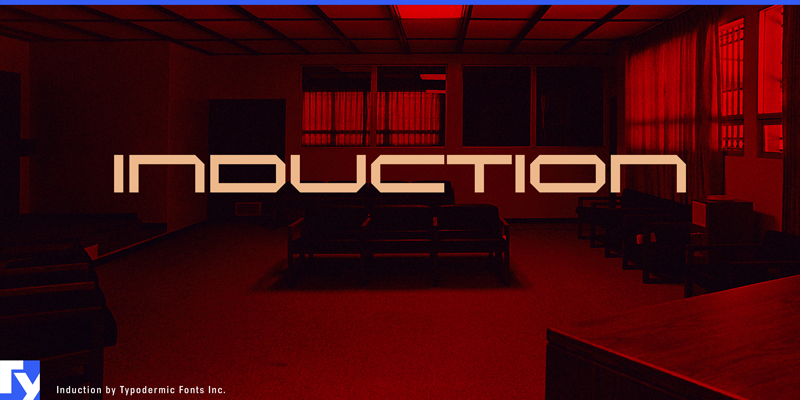
Note of the authorInduction is a digital display typeface with an outstretched structure. It was inspired by Wim Crouwel's 1967 New Alphabet. This broader, more approachable design isn't as revolutionary, but it works well for everyday purposes. Most Latin-based European writing systems are supported, including the following languages. Afaan Oromo, Afar, Afrikaans, Albanian, Alsatian, Aromanian, Aymara, Azerbaijani, Bashkir (Latin), Basque, Belarusian (Latin), Bemba, Bikol, Bosnian, Breton, Cape Verdean, Creole, Catalan, Cebuano, Chamorro, Chavacano, Chichewa, Crimean Tatar (Latin), Croatian, Czech, Danish, Dawan, Dholuo, Dutch, English, Estonian, Faroese, Fijian, Filipino, Finnish, French, Frisian, Friulian, Gagauz (Latin), Galician, Ganda, Genoese, German, Gikuyu, Greenlandic, Guadeloupean Creole, Haitian Creole, Hawaiian, Hiligaynon, Hungarian, Icelandic, Igbo, Ilocano, Indonesian, Irish, Italian, Jamaican, Kaingang, Kanuri, Kaqchikel, Karakalpak (Latin), Kashubian, Kikongo, Kinyarwanda, Kirundi, Kurdish (Latin), Latvian, Lithuanian, Lombard, Low Saxon, Luxembourgish, Maasai, Makhuwa, Malay, Maltese, Māori, Moldovan, Montenegrin, Nahuatl, Ndebele, Neapolitan, Norwegian, Novial, Occitan, Ossetian (Latin), Papiamento, Piedmontese, Polish, Portuguese, Quechua, Rarotongan, Romanian, Romansh, Sami, Sango, Saramaccan, Sardinian, Scottish Gaelic, Serbian (Latin), Shona, Sicilian, Silesian, Slovak, Slovenian, Somali, Sorbian, Sotho, Spanish, Swahili, Swazi, Swedish, Tagalog, Tahitian, Tetum, Tongan, Tshiluba, Tsonga, Tswana, Tumbuka, Turkish, Turkmen (Latin), Tuvaluan, Uzbek (Latin), Venda, Venetian, Vepsian, Võro, Walloon, Waray-Waray, Wayuu, Welsh, Wolof, Xavante, Xhosa, Yapese, Zapotec, Zarma, Zazaki, Zulu and Zuni.